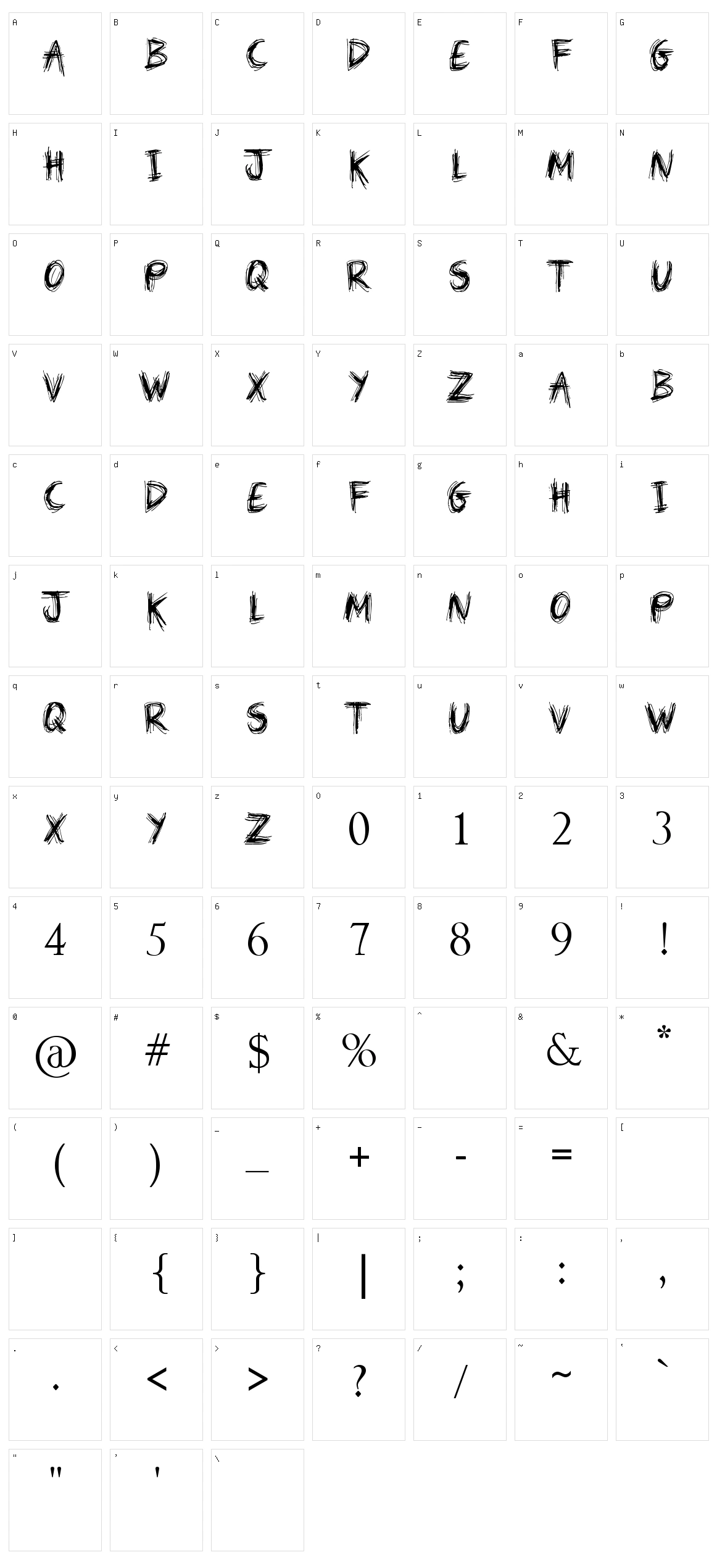
The free font Forbidden Land is carefully designed by JSH creates, showcasing a thoughtful balance of creativity and usability and falls under the Trash font style. When you download the ZIP file, it contains only 26.17 KB of font files, making it lightweight and quick to download. Please review the license details below to understand permitted usage and distribution rights. If license information is not available, we recommend using this font for personal projects only or contacting the author directly for commercial usage permissions.